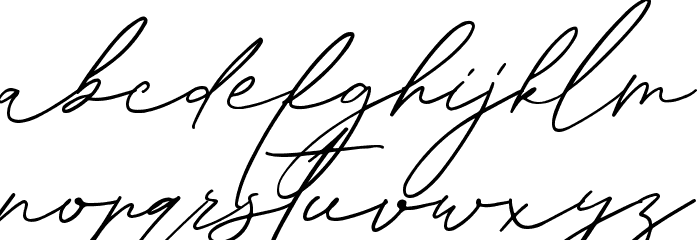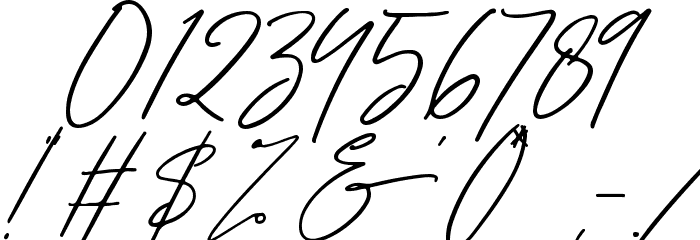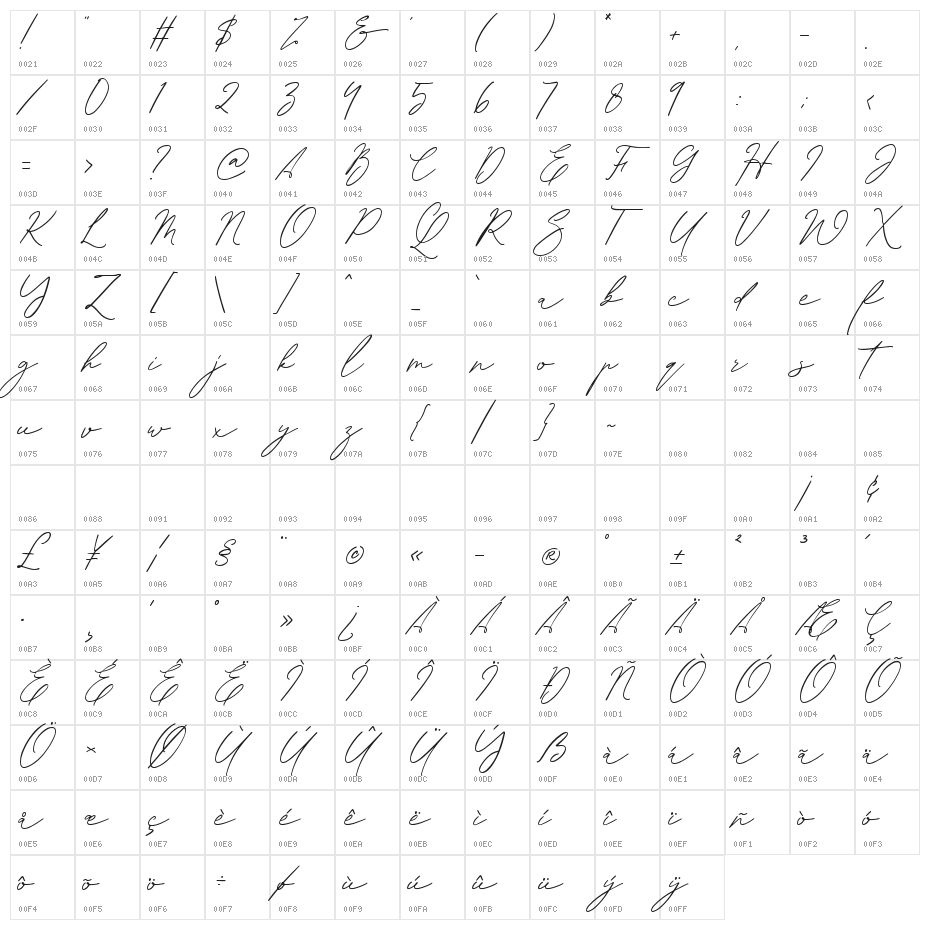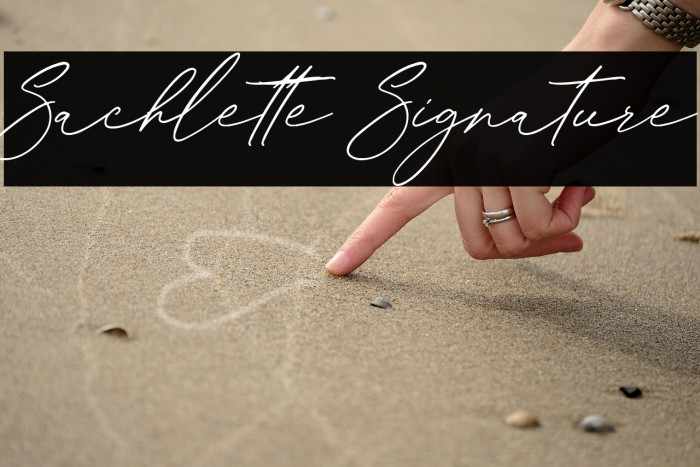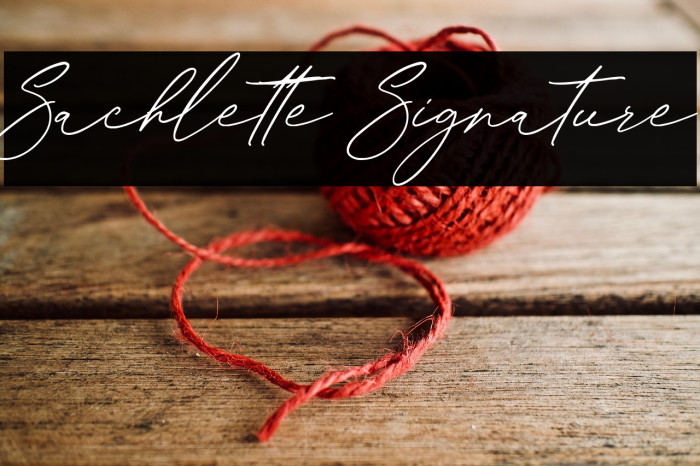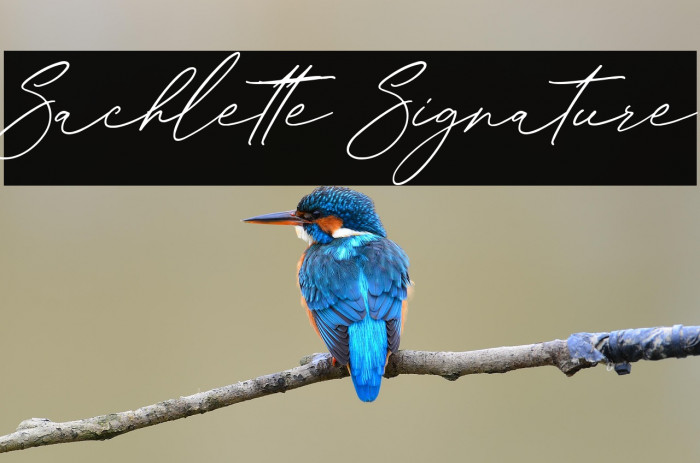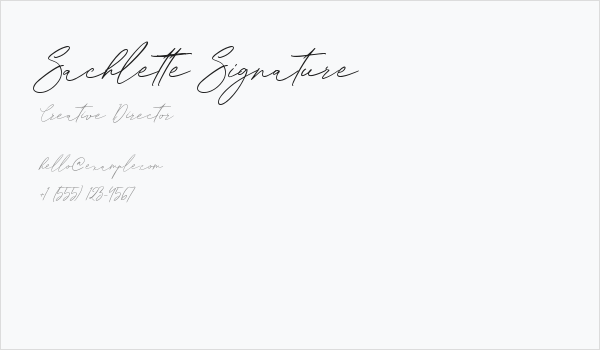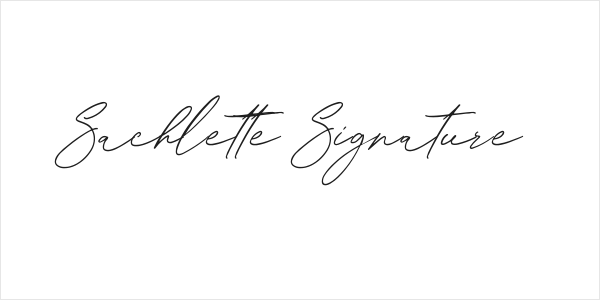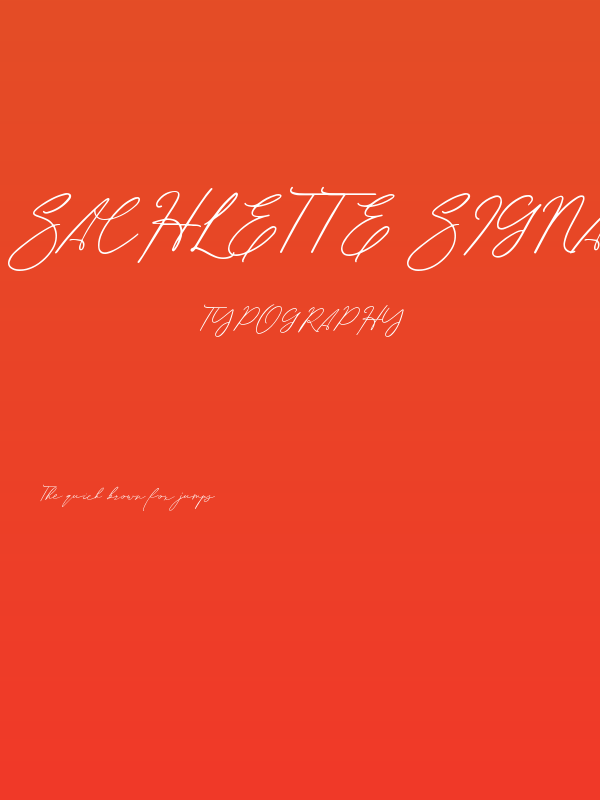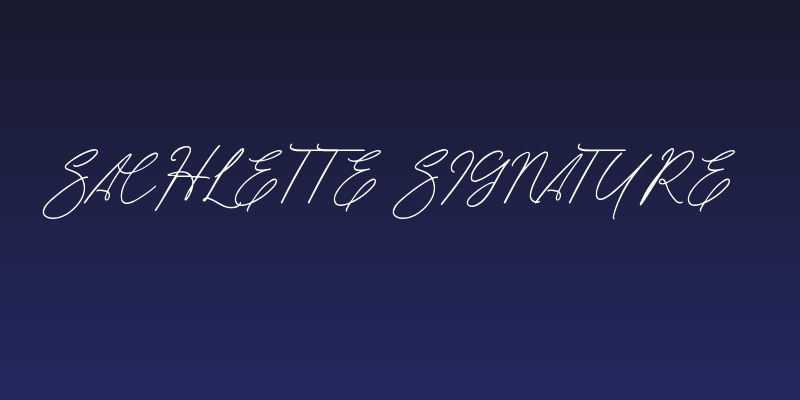
Sachlette Signature Font
This font exudes elegance and sophistication with its fluid, cursive style. The letters are connected in a seamless flow, reminiscent of a personal handwritten signature. Each character is crafted with a delicate balance of thin and slightly thicker strokes, giving it a dynamic and lively appearance. The uppercase letters are particularly ornate, with graceful loops and swirls that add a touch of flair. The lowercase letters maintain a consistent rhythm, contributing to the overall harmony of the design. Numbers and special characters are designed to match the cursive style, ensuring a cohesive look across all text elements.
A fluid, cursive font with elegant, signature-like strokes.
- Proposed Projects: Ideal for wedding invitations, personal branding, elegant logos, and stationery design.
- Character Spacing: Tight
- Overall Style: Elegant
- Use Case: Logos, Invitations, Personal branding